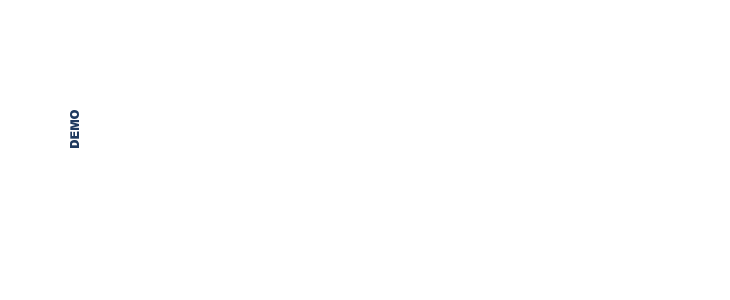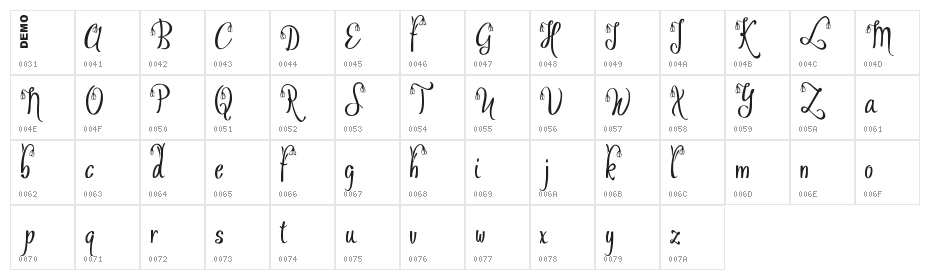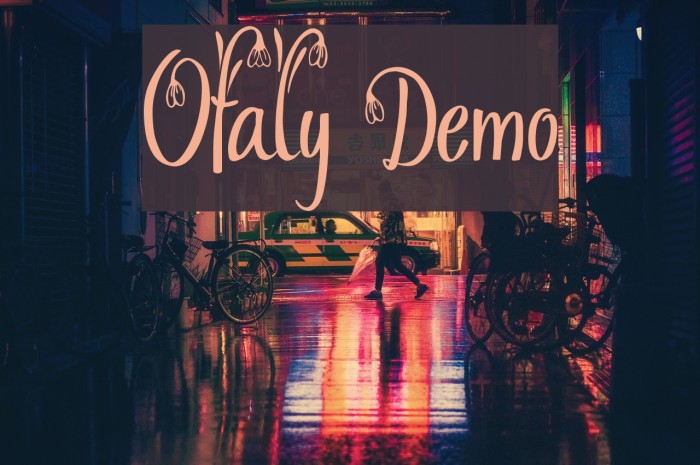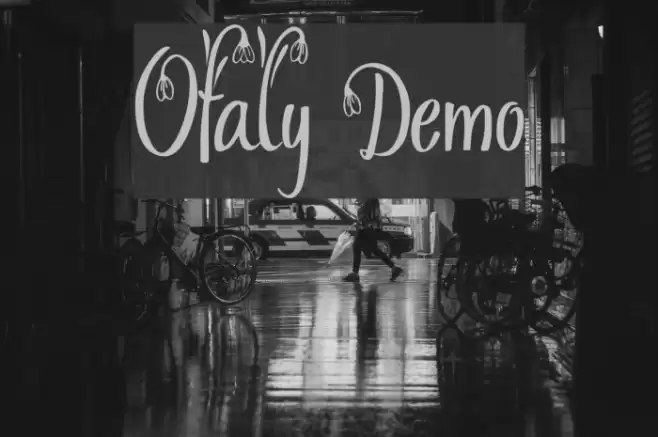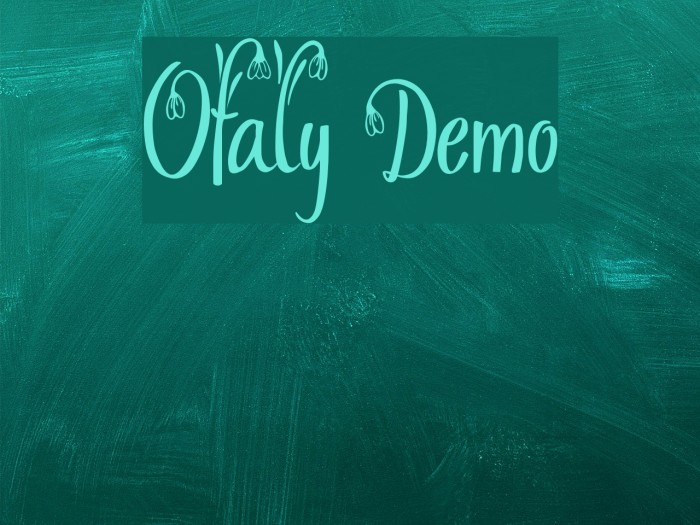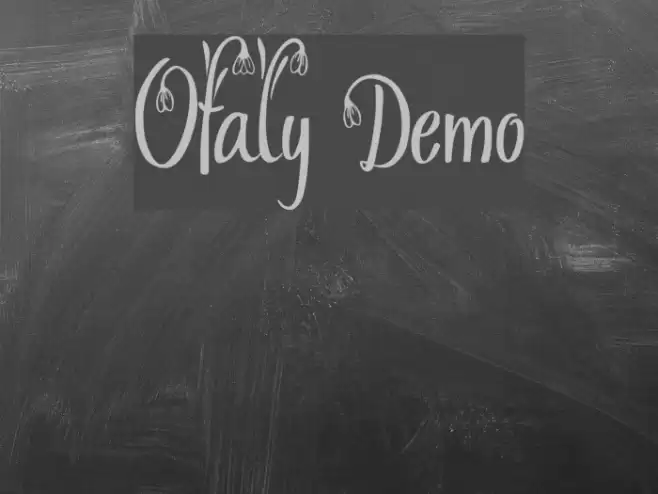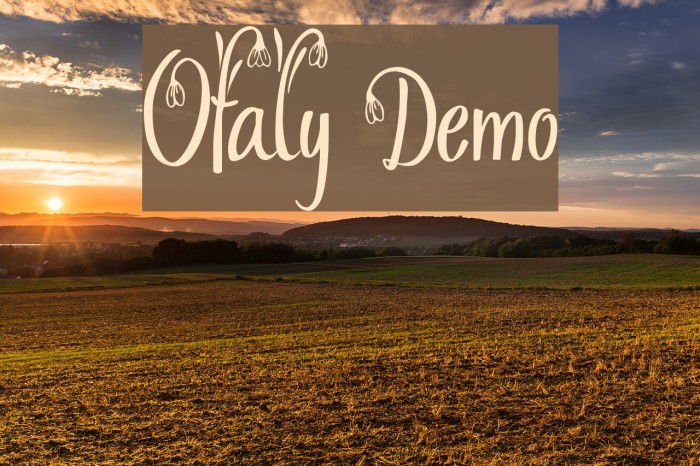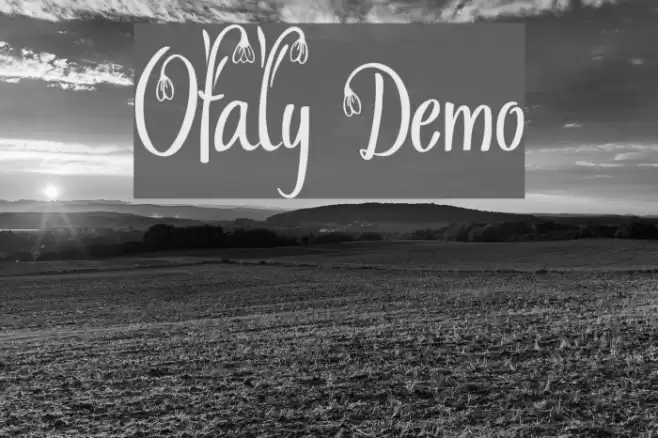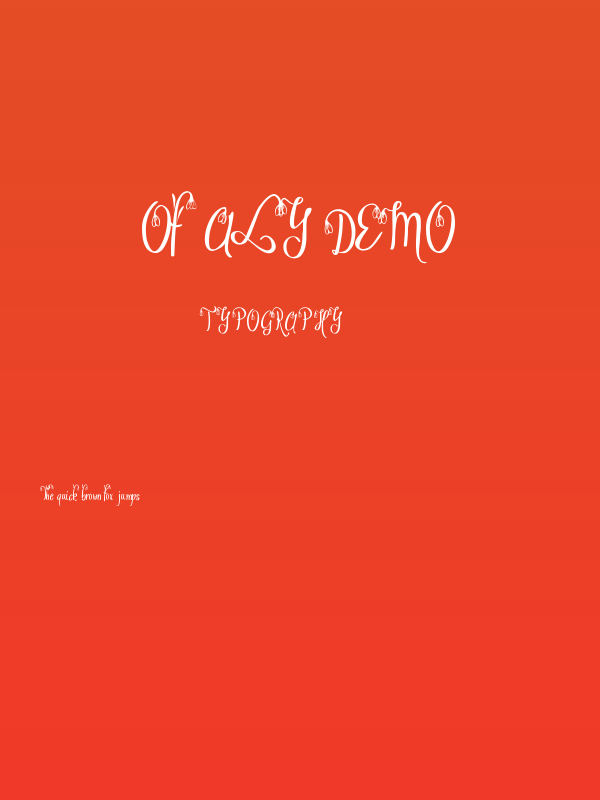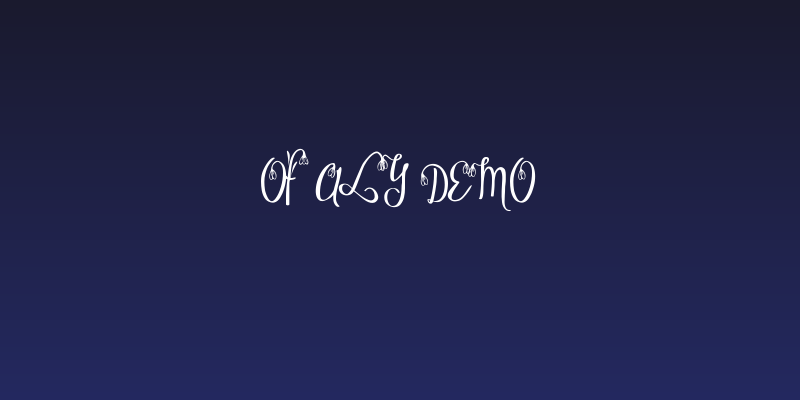
Ofaly Demo Font
Ofaly Demo Description
This font features a whimsical and decorative style, characterized by its playful curves and unique embellishments. Each letter is adorned with small, floral-like accents that give it a charming and artistic flair. The uppercase letters are particularly ornate, with extended swirls and loops that create a sense of movement and elegance. The lowercase letters maintain a more straightforward yet still decorative appearance, ensuring readability while retaining the font's overall artistic theme. The numbers and special characters are designed to match the ornate style of the letters, making this font a cohesive choice for creative projects.
| Use Case | Headlines, Logos, Artistic projects |
| Proposed Projects | Ideal for wedding invitations, greeting cards, artistic posters, and branding materials that require a touch of elegance and creativity. |